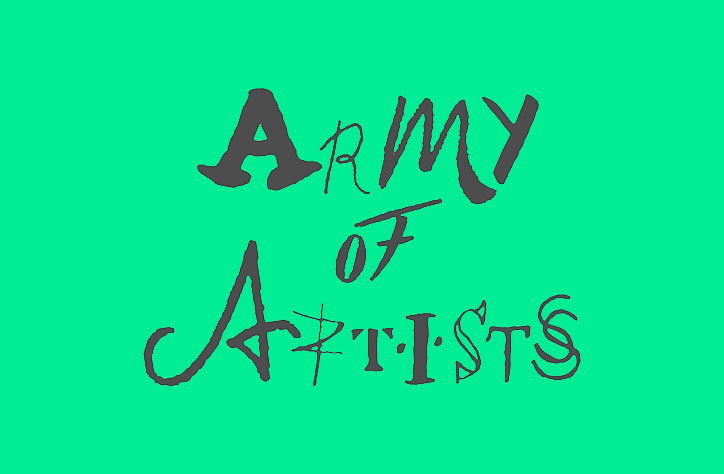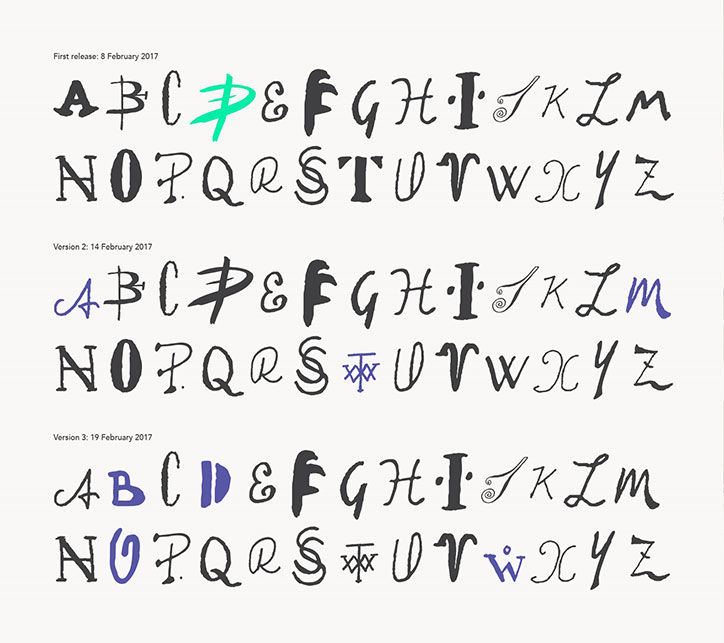
An open-source typeface based on artists’ signatures, by Landor for Artupia
Design firm Landor has created a typeface based on artists’ signatures for art buying site Artupia. As part of a redesign for the platform, Landor developed the Army of Artists typeface using the first letter from each signature to craft a series of individual monograms.
The face is available to download for free via Artupia, and will evolve and grow over time as more artists add their signatures to the bank of letters.
Based on a redesign that draws visual cues from traditions of the art world, the eclectic typeface aims to celebrate the individual artists using the selling platform. Landor also introduced a “sticker” system for art buyers to use, similar to a ‘like’ or a ‘sold’ sticker in an auction, to show appreciation for an artwork. This also impacts the piece’s value, which increases depending on its popularity.
Another subtle art-world device used is a white frame on the app and website, drawn from “the traditional iconography of art galleries”.
Landor: Army of Artists typeface for Artupia